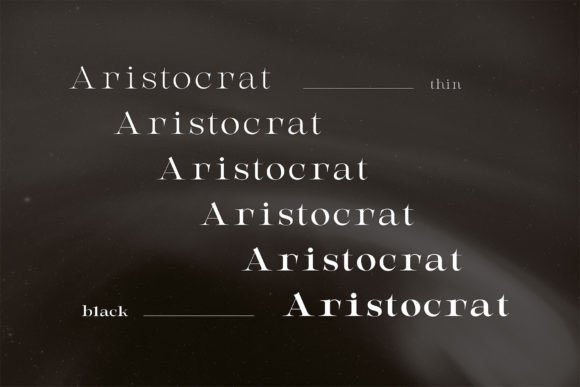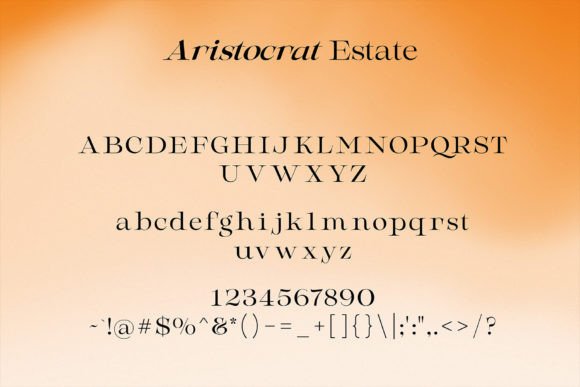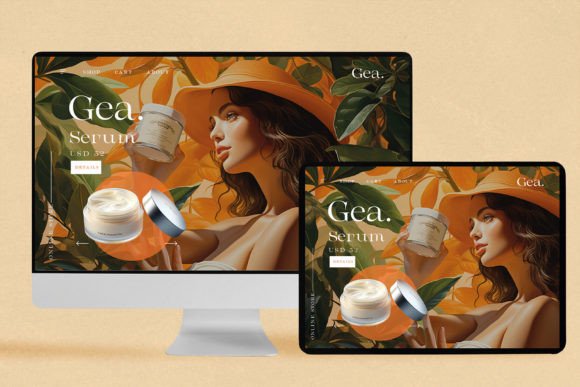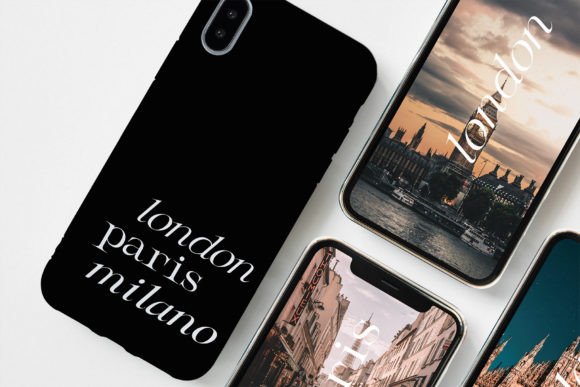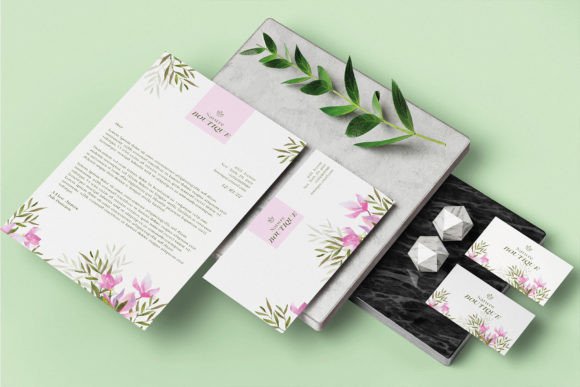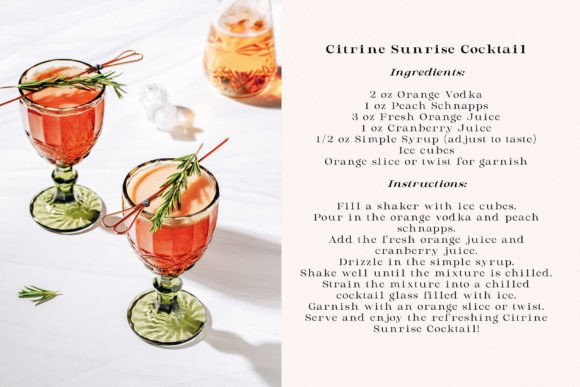
Unleashing the Elegance of Aristocrat Estate Font
Imagine walking into a luxurious mansion, surrounded by opulent chandeliers and intricate details that scream refinement and class. The moment you step into such a grand space, you can’t help but feel a sense of awe and sophistication. It’s in these moments that we’re reminded of the importance of typography in evoking emotions and setting the tone for an experience.
For designers seeking to create a similar atmosphere in their projects, the Aristocrat Estate Font is the perfect tool. This exquisite serif typeface is meticulously crafted to exude an air of timeless elegance, making it an ideal choice for high-end branding, editorial layouts, and invitations. With 12 meticulously designed weights, Aristocrat Estate Font offers versatility that suits both formal and contemporary contexts.
Aristocrat Estate Font Key Features
- Font Family: A unique, high-end serif font designed for luxury and elegance, suitable for estate and luxury branding.
- Unique Characteristics: Features intricate details, ornate flourishes, and subtle texture, evoking a sense of sophistication and refinement.
- Language Support: Supports a wide range of languages, including Latin, Cyrillic, and Greek alphabets, making it suitable for global branding efforts.
Aristocrat Estate Font Review
I recently had the chance to work with the Aristocrat Estate font, and I must say it’s a mixed bag. On one hand, there are some things that I really like about it.
- The font’s classic and elegant feel makes it perfect for luxury brands, high-end products, or anything that needs to exude sophistication.
- The font’s versatility allows it to work well in both print and digital applications, making it a great choice for designers.
- The font’s high-quality glyphs and detailed design make it a great choice for headings and titles.
However, as with any font, there are some limitations to consider.
- The font’s high-end feel can sometimes come across as overly formal or stuffy, which may not be suitable for all brands or applications.
- The font’s complexity and high detail level can make it difficult to use in certain situations, such as in small text sizes or on low-resolution screens.
- The font’s large file size can make it a bit cumbersome to work with, especially for designers working on large projects.
Overall, I think the Aristocrat Estate font is a great choice for designers who need a high-end, elegant font for their projects. However, it may not be the best choice for every project, and designers should carefully consider the limitations before using it.
Use the Aristocrat Estate Font for high-end designs, such as luxury branding, real estate marketing, and upscale wedding invitations.
Adjust the font size and color to match your design aesthetic.
Combine the font with other elegant fonts for a sophisticated look.
Real estate marketing materials
Luxury branding
Upscale wedding invitations
High-end product packaging
Elegant business cards
Comparison: While Aristocrat Estate Font has a more subtle and vintage feel, Playfair Display is bolder and more dramatic, making it suitable for designs that require a stronger statement.
2. Didot
Didot is a classic serif font that exudes luxury and sophistication. It’s perfect for high-end designs, such as fashion, beauty, and lifestyle brands, where elegance and refinement are key. Didot’s sleek lines and refined details make it a great alternative to Aristocrat Estate Font for projects that require a touch of class.
Is the Aristocrat Estate Font optimized for digital use?
Yes, the Aristocrat Estate Font is carefully crafted for optimal performance in digital environments. It features advanced hinting and kerning to ensure crisp and clear text rendering on screens, as well as compatibility with a wide range of devices and resolutions.